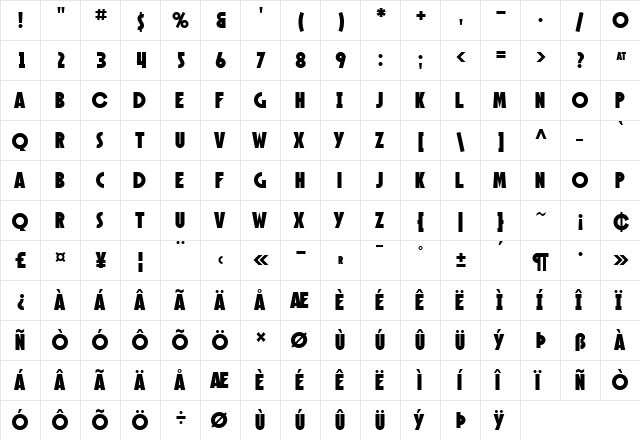
SF Speakeasy Regular
| Designer | ShyFonts Type Foundry |
Design Context for SF Speakeasy Typeface
SF Speakeasy is a composed and adaptable typeface that performs quietly and consistently across a wide range of design contexts.